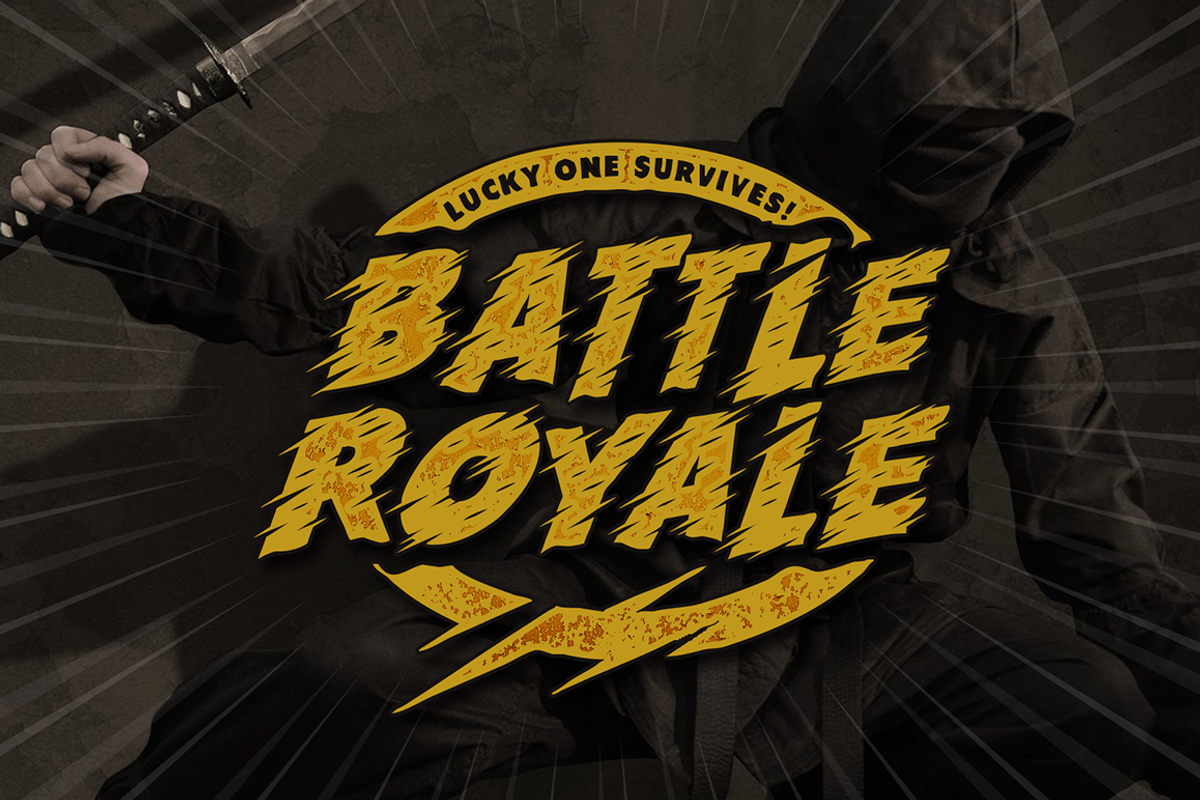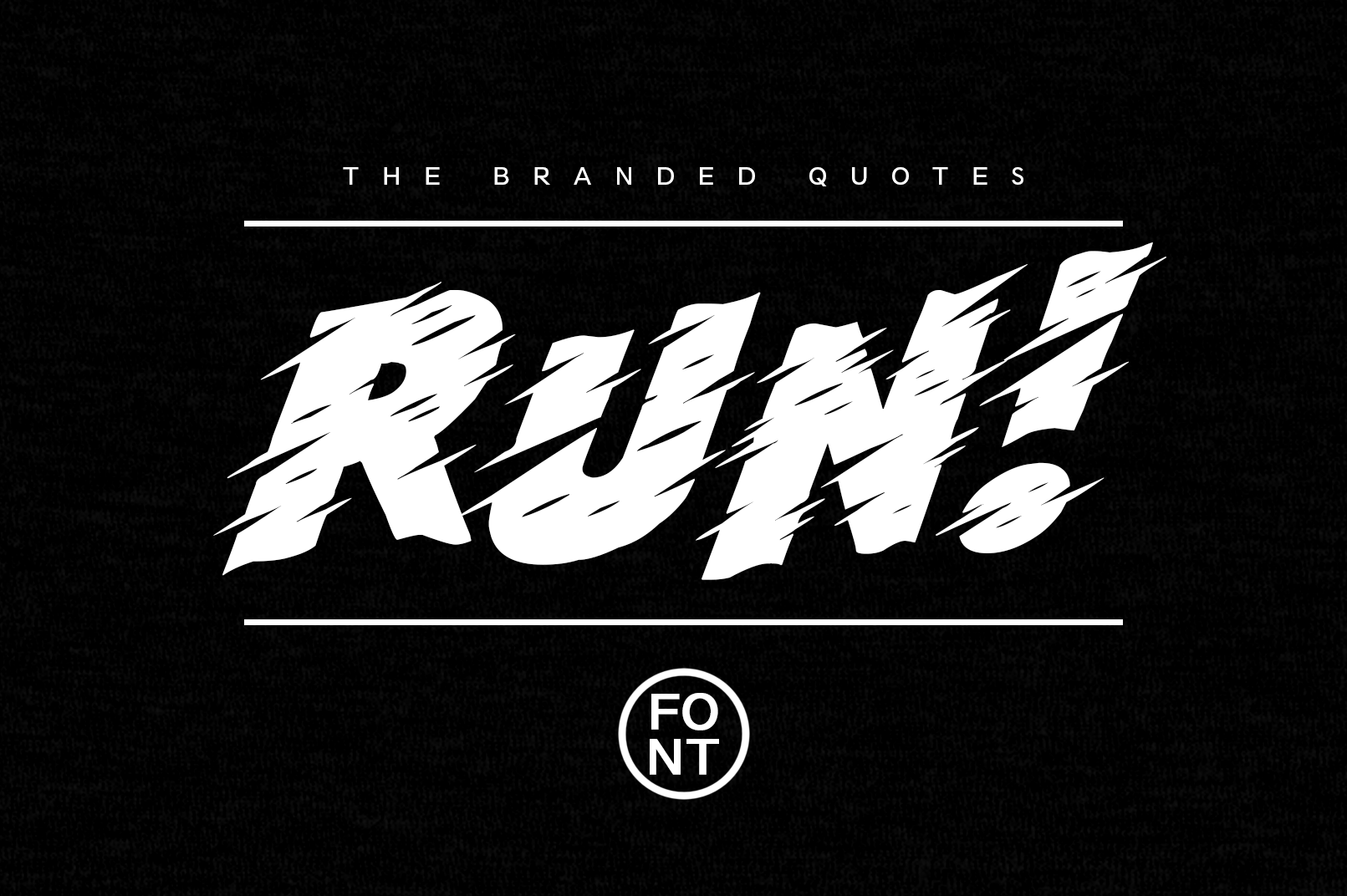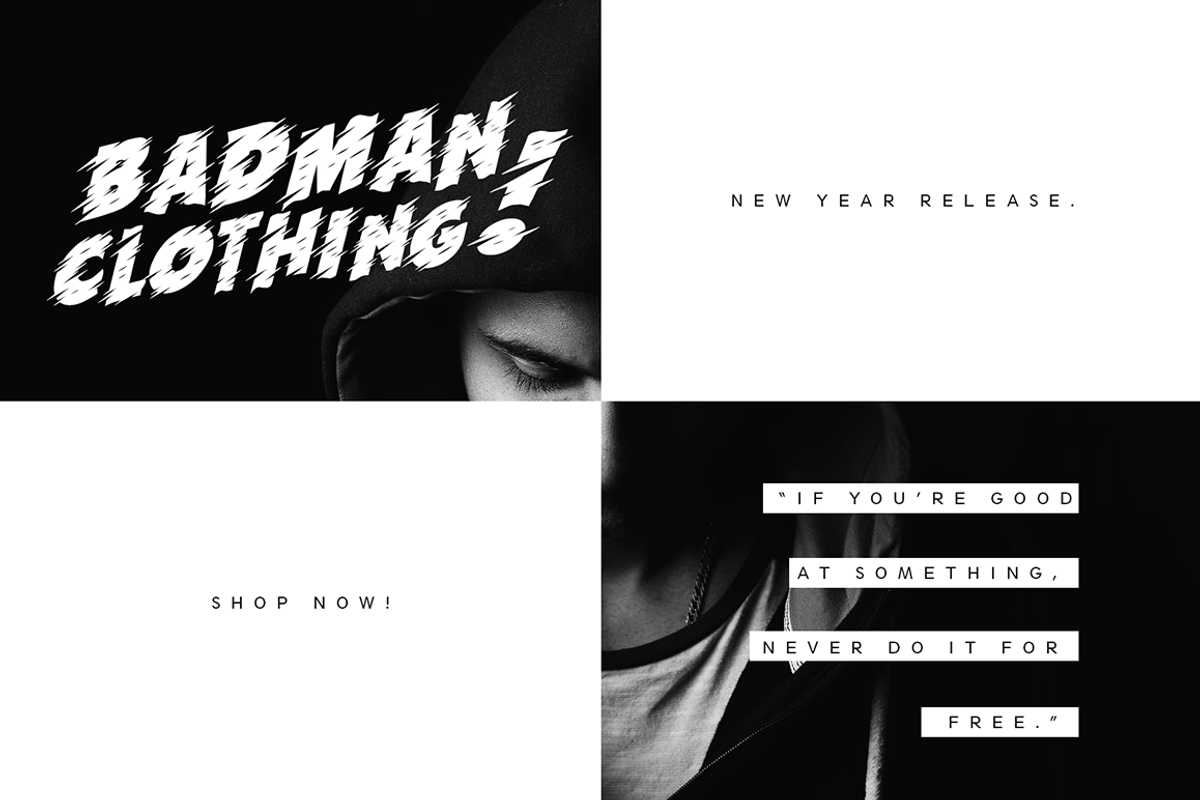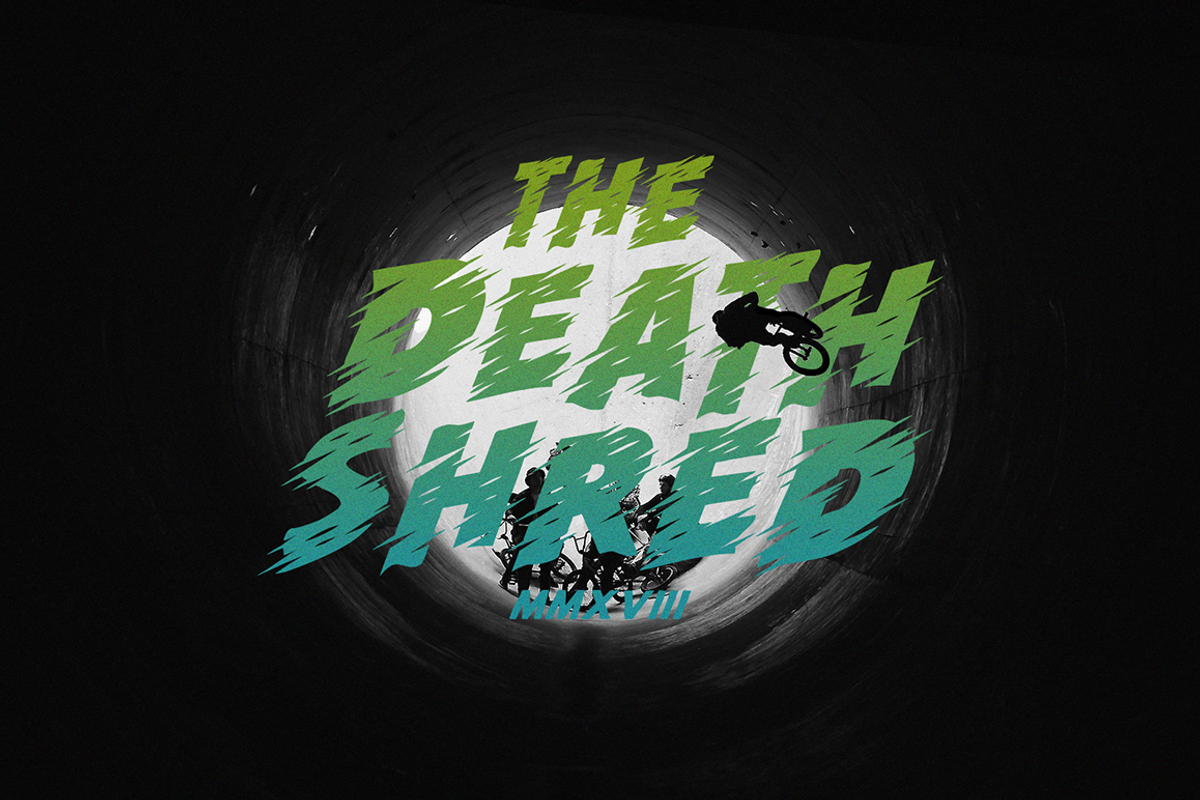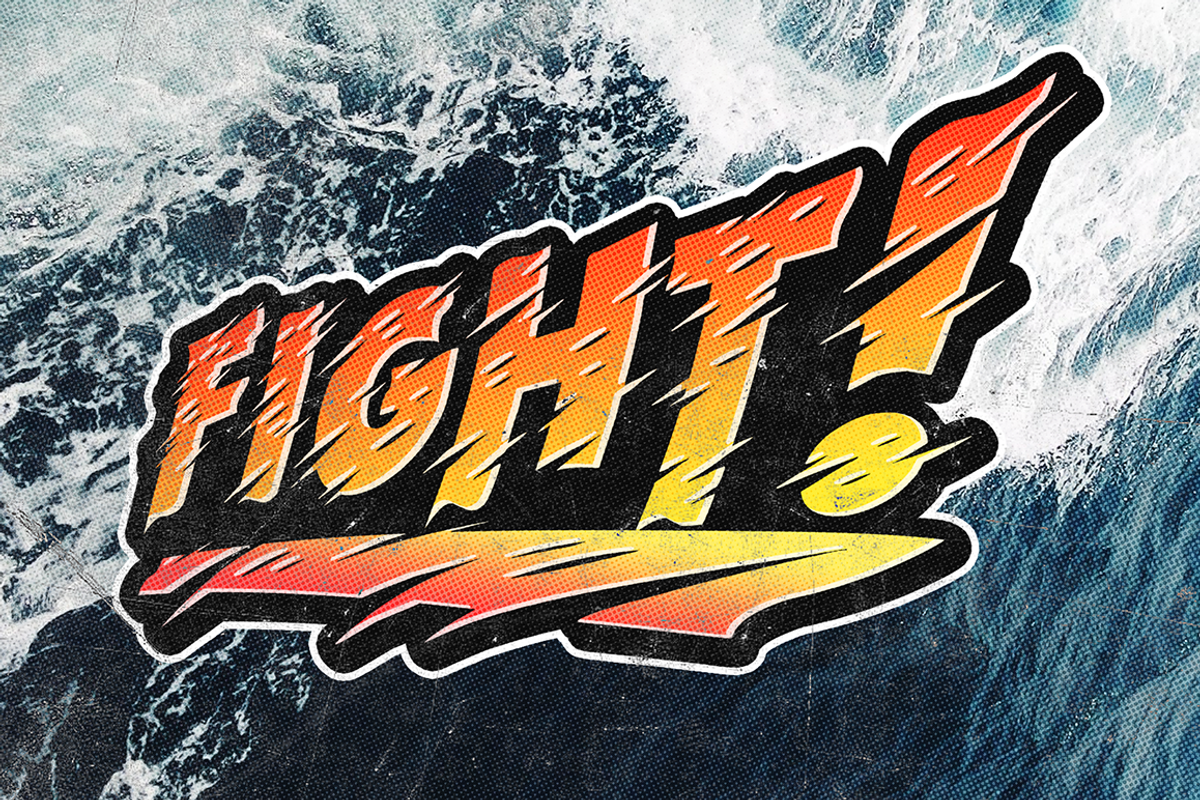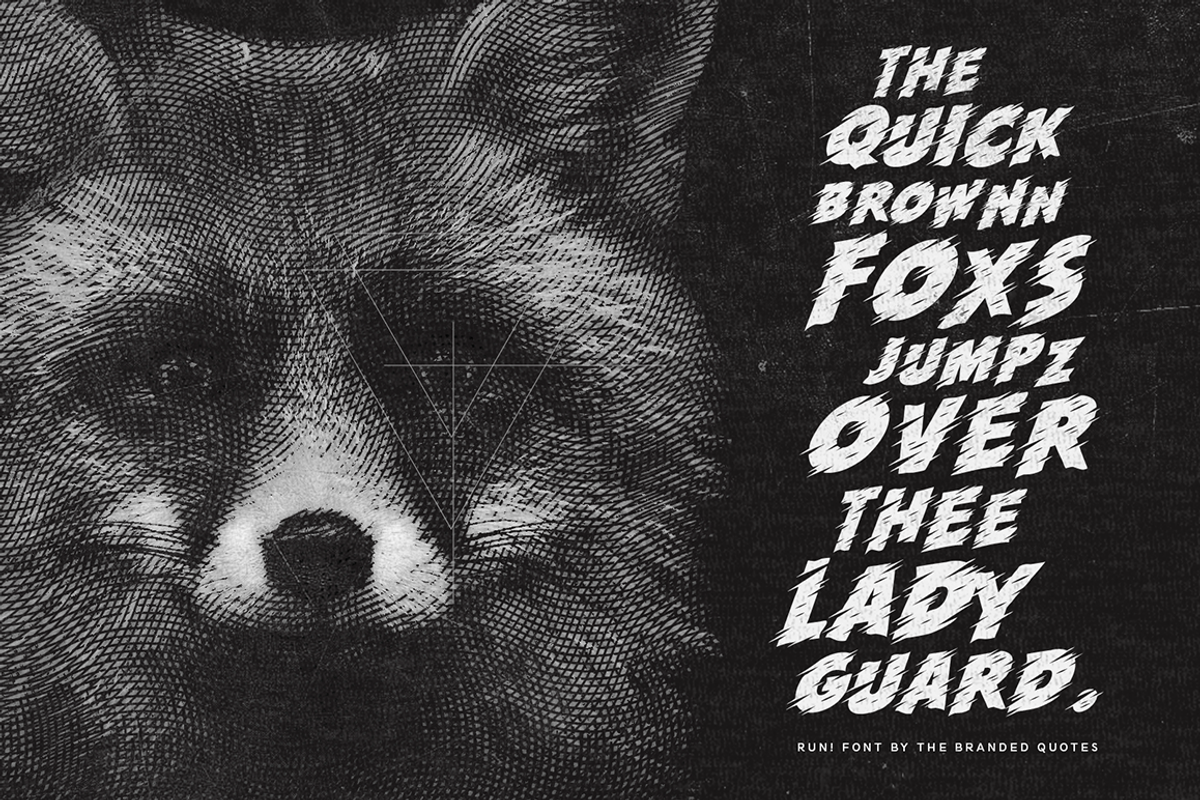
Attention-seeking font! This slanted Sans is one of a kind. All the energy and stamina fitted from A-Z. A perfect build for your loud design projects. Now, with few effects applied you can bring your presentations to the next level! Even with flat colors, Run! Font pokes you in the eye.
Run! Font contains Capitals, Numerals and Punctuation. To form a great output, combine both uppercase and lowercase and see a better result.